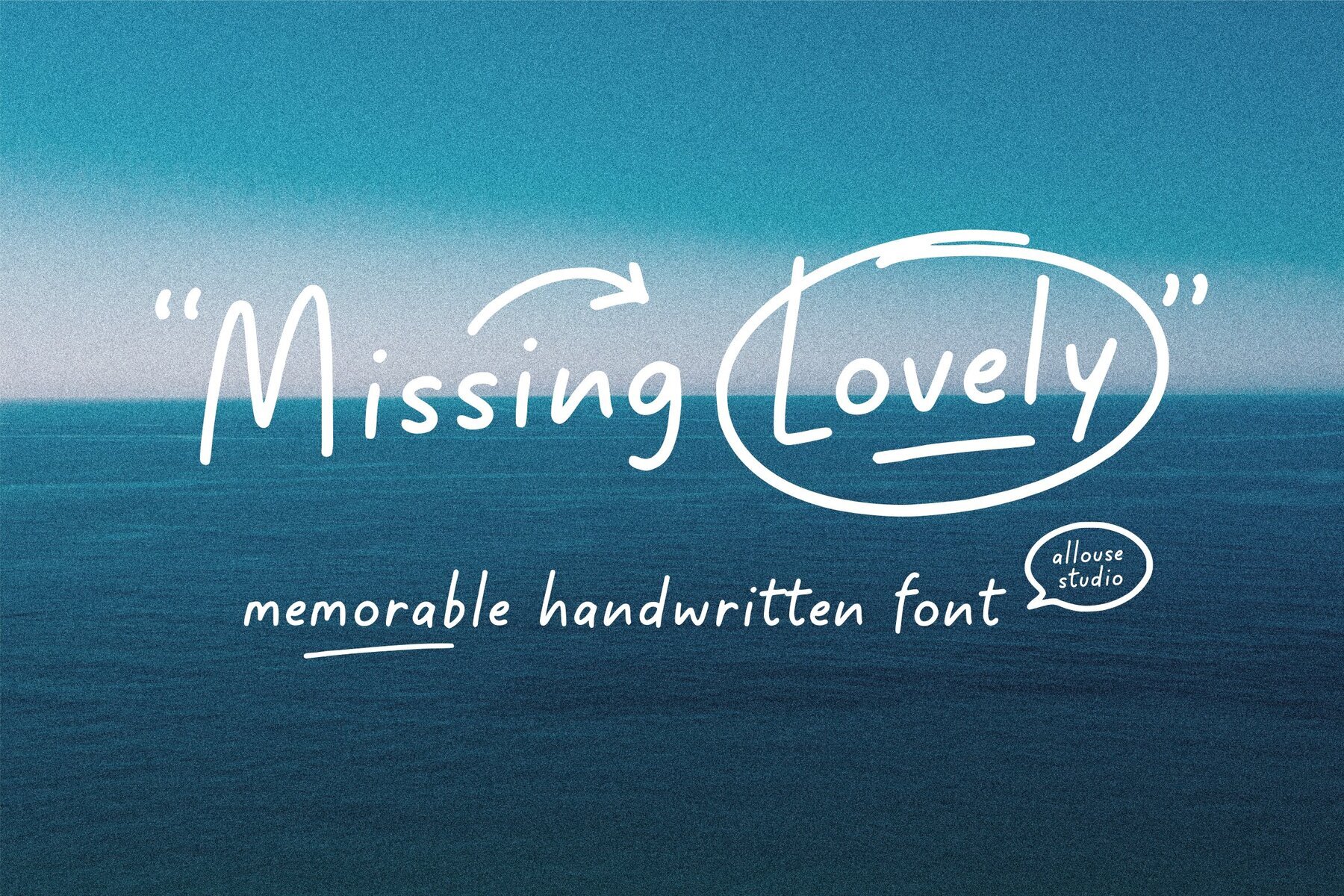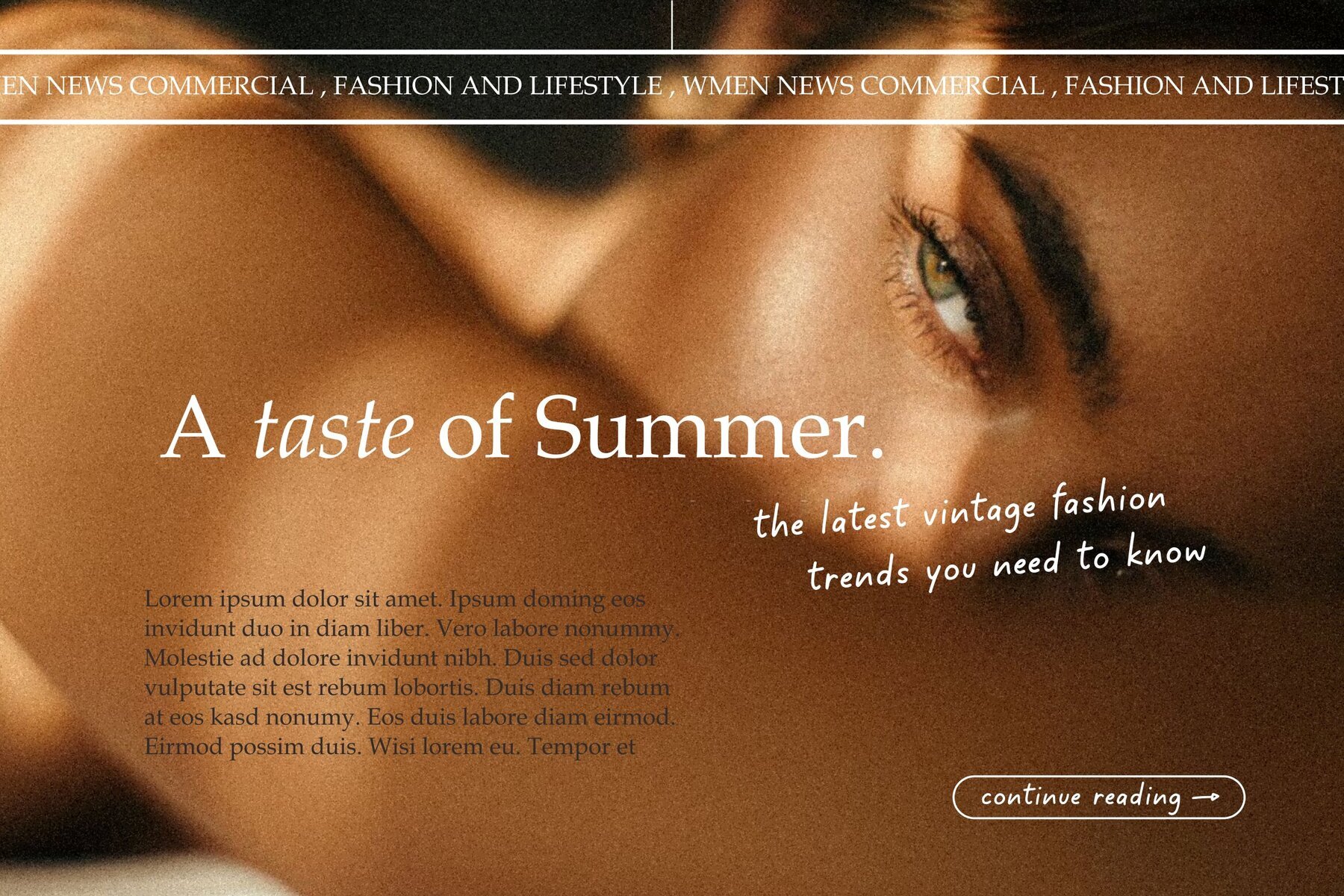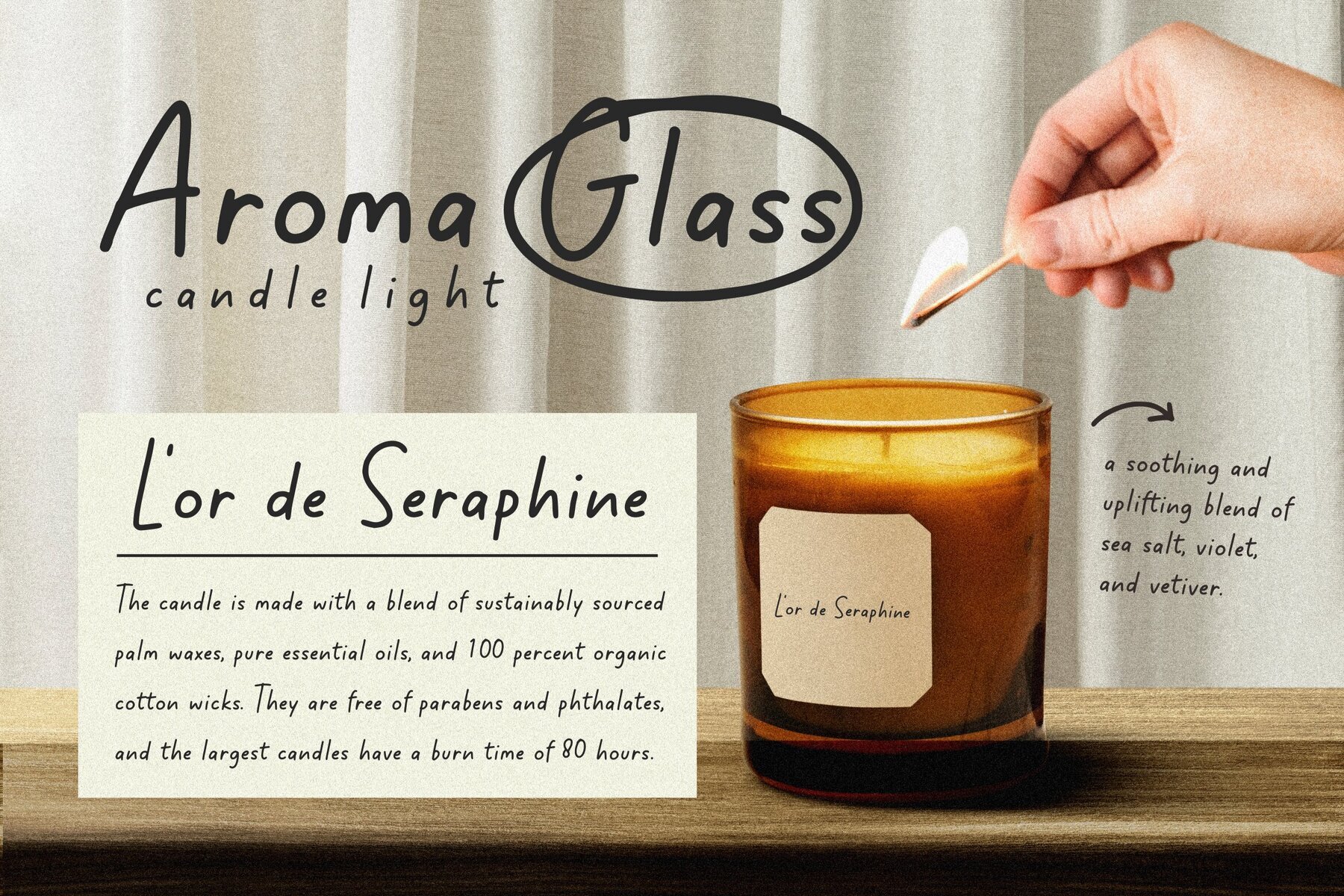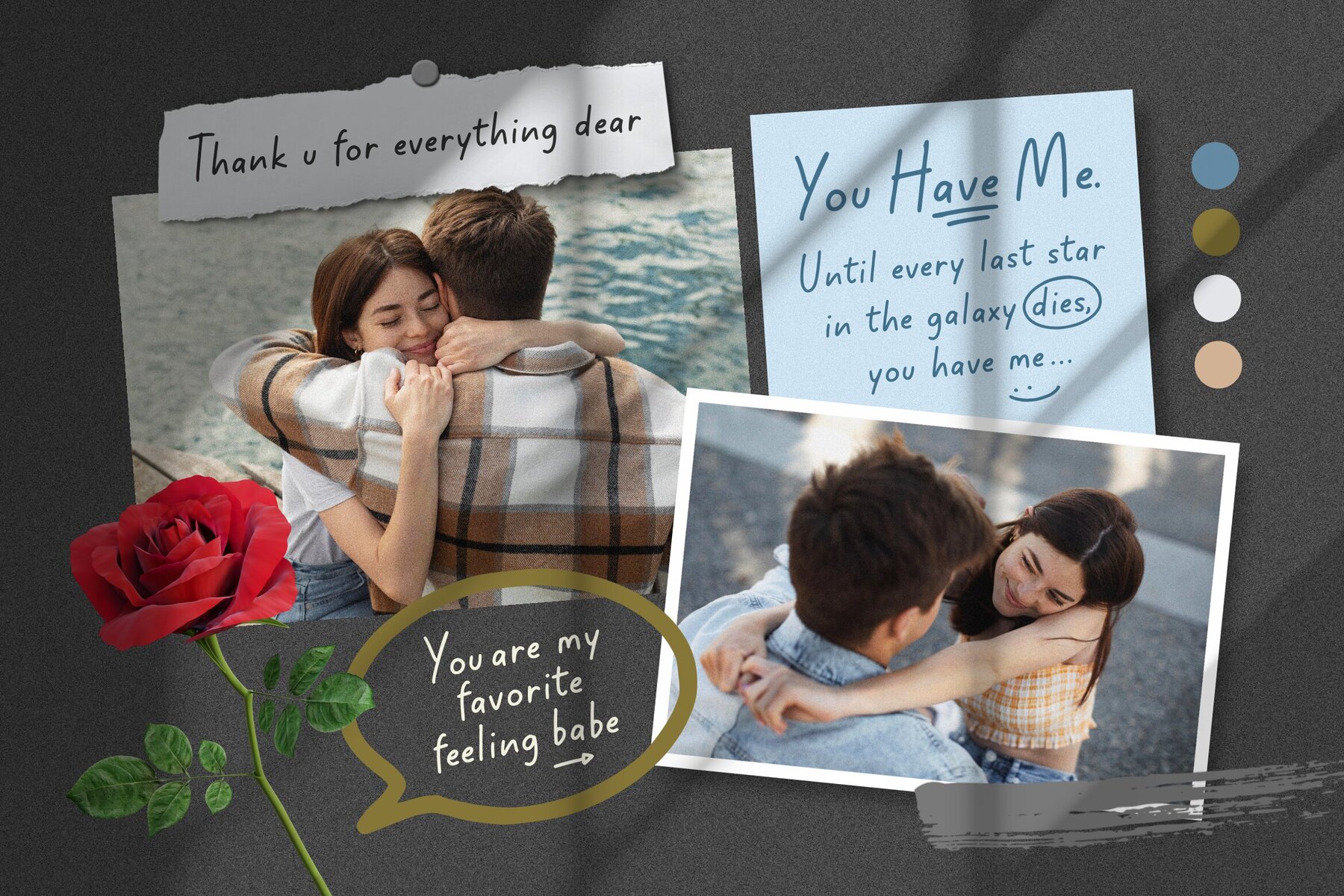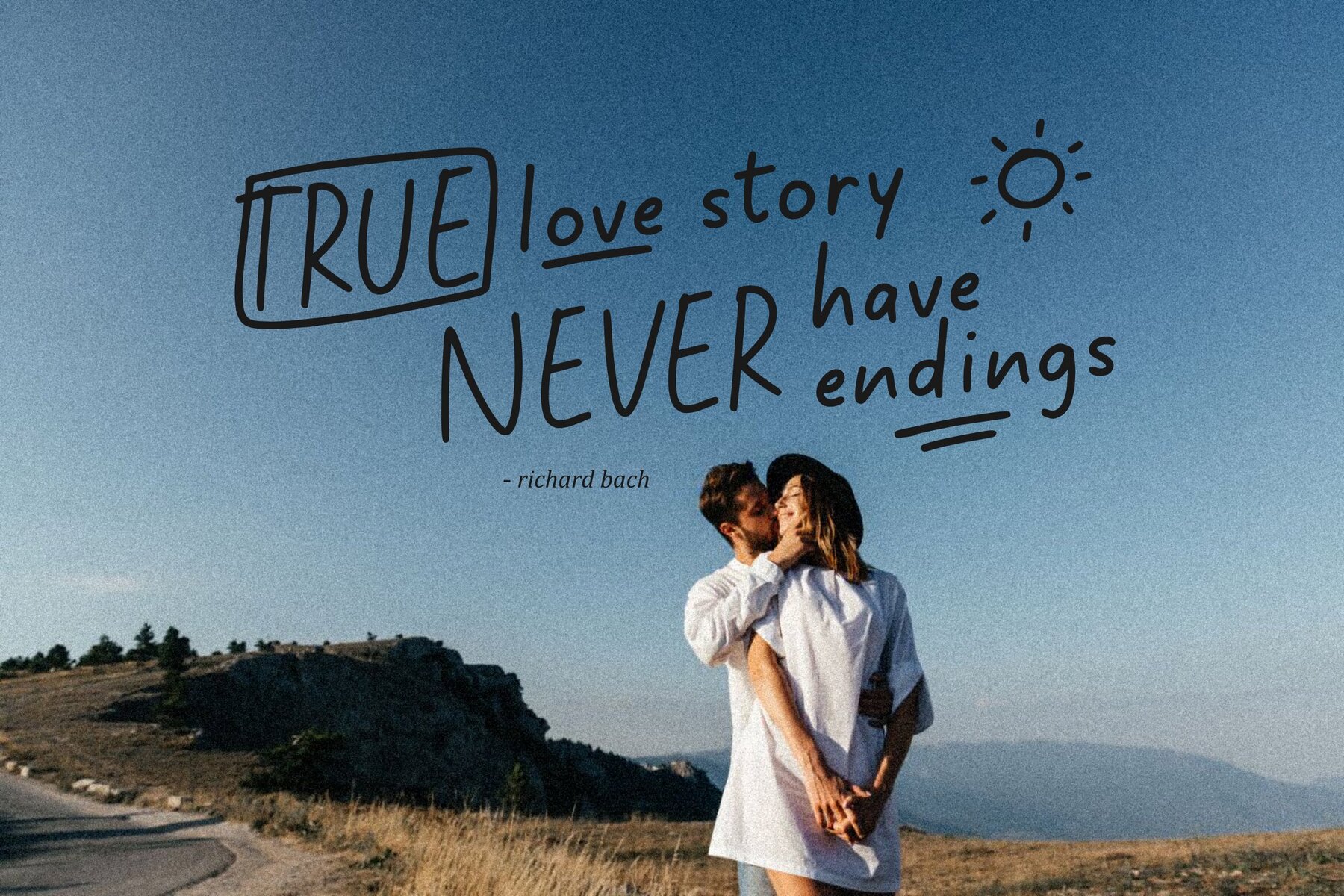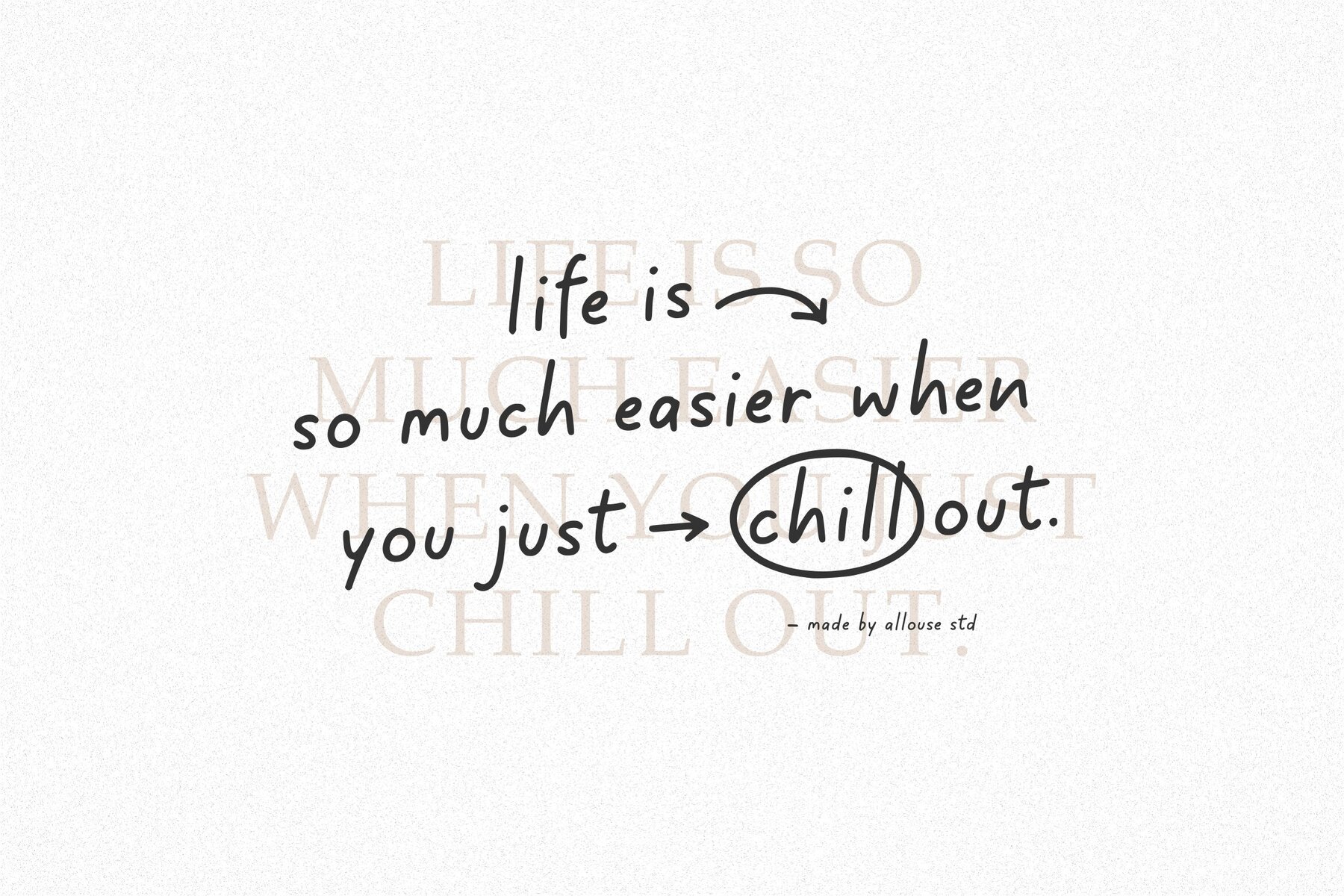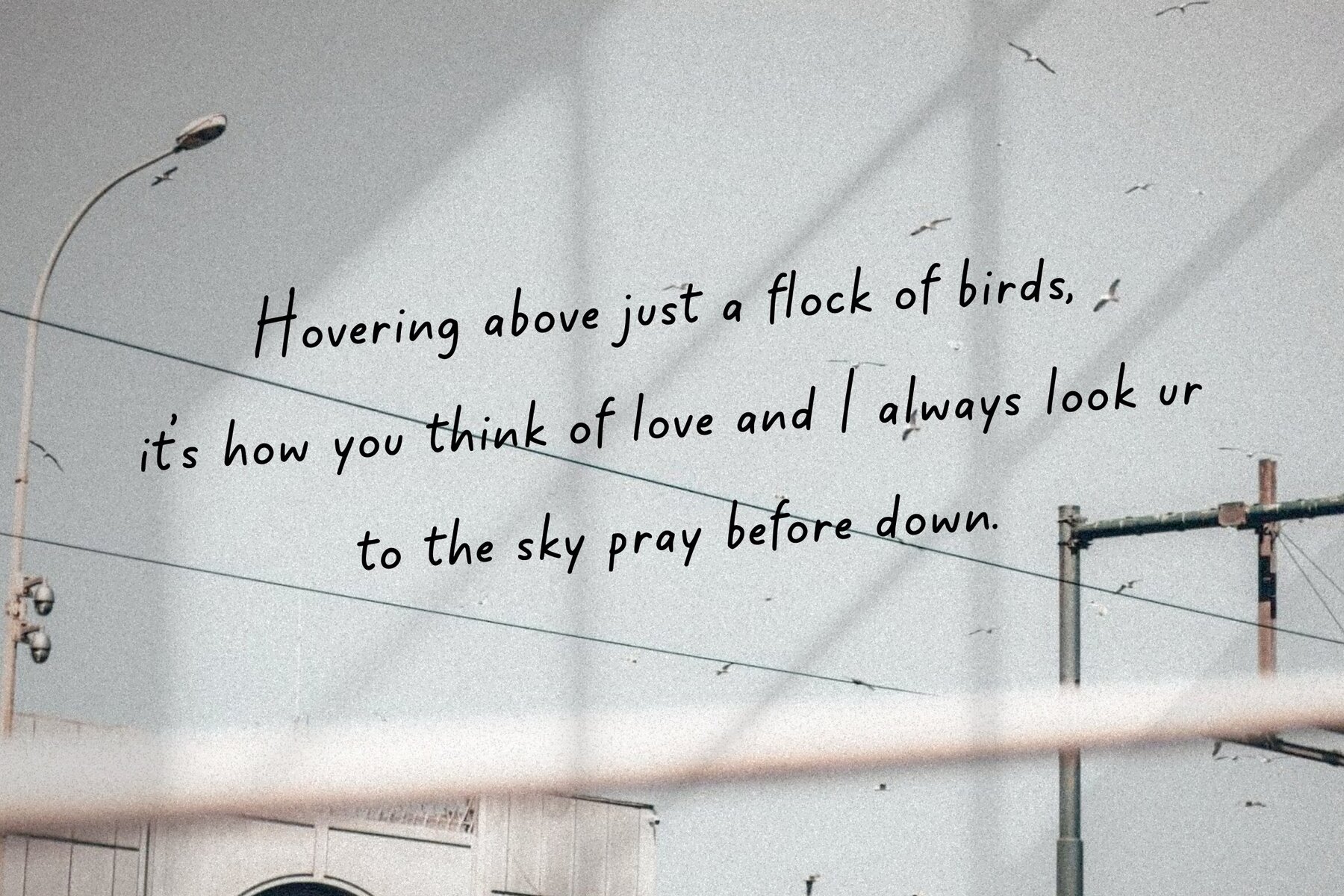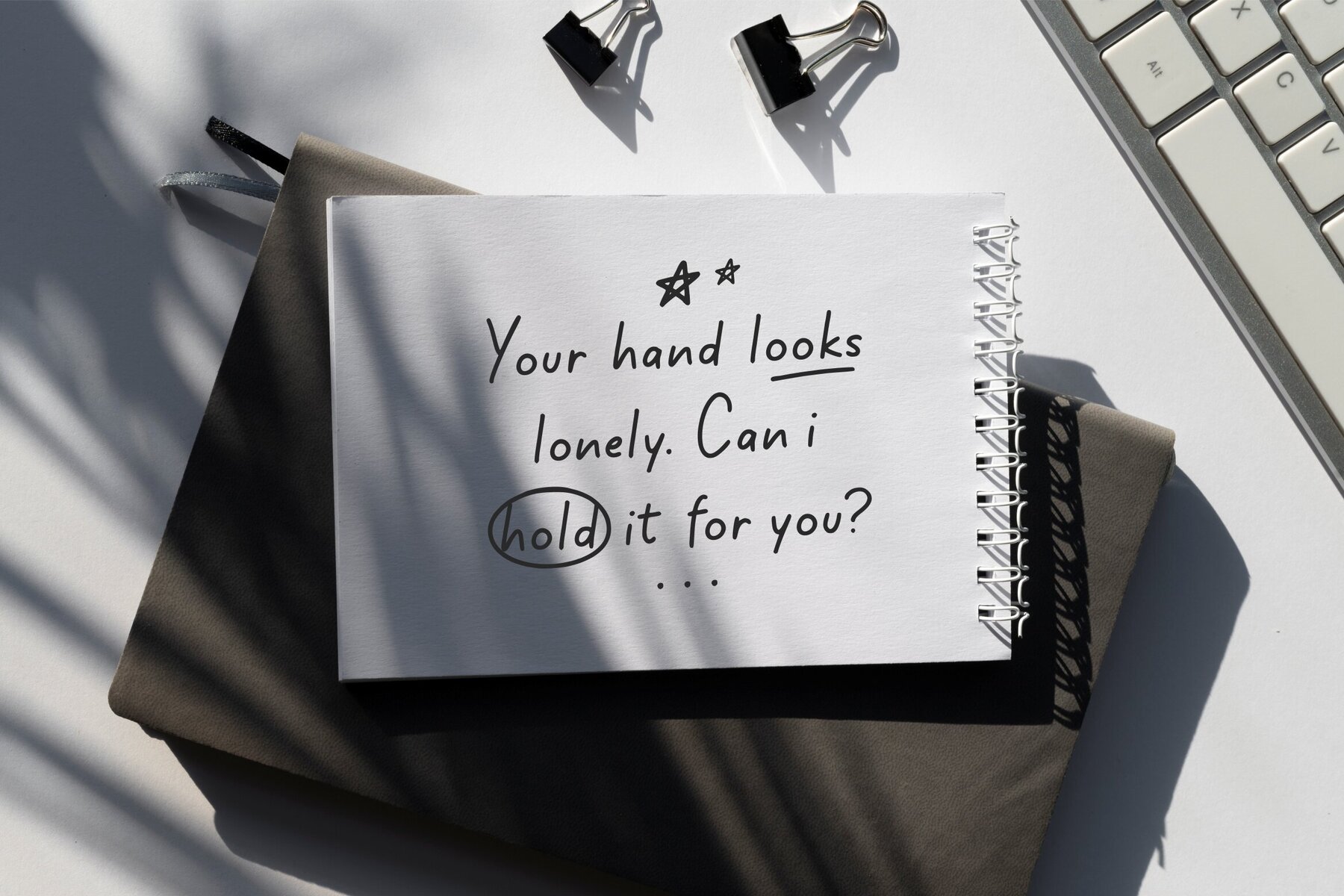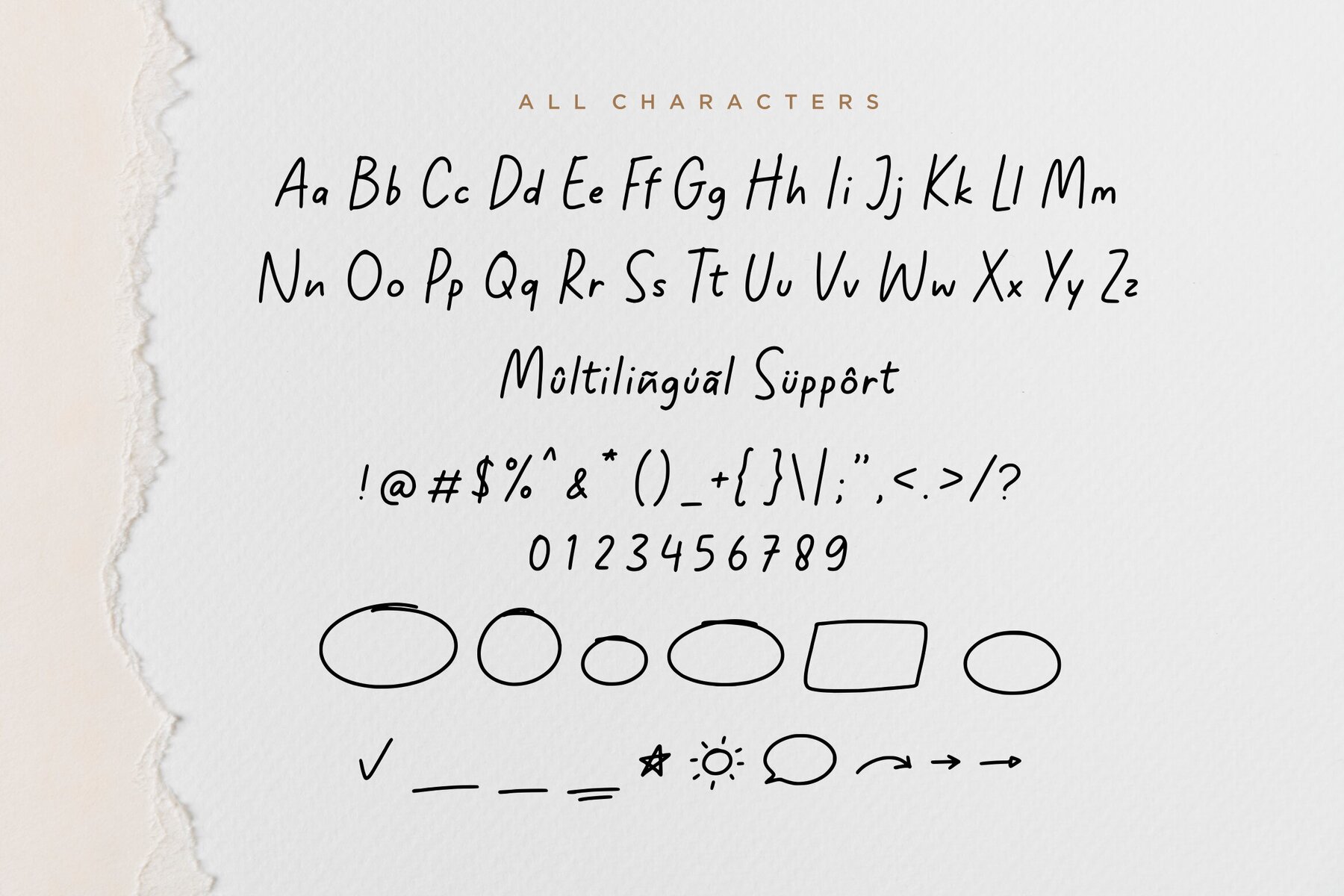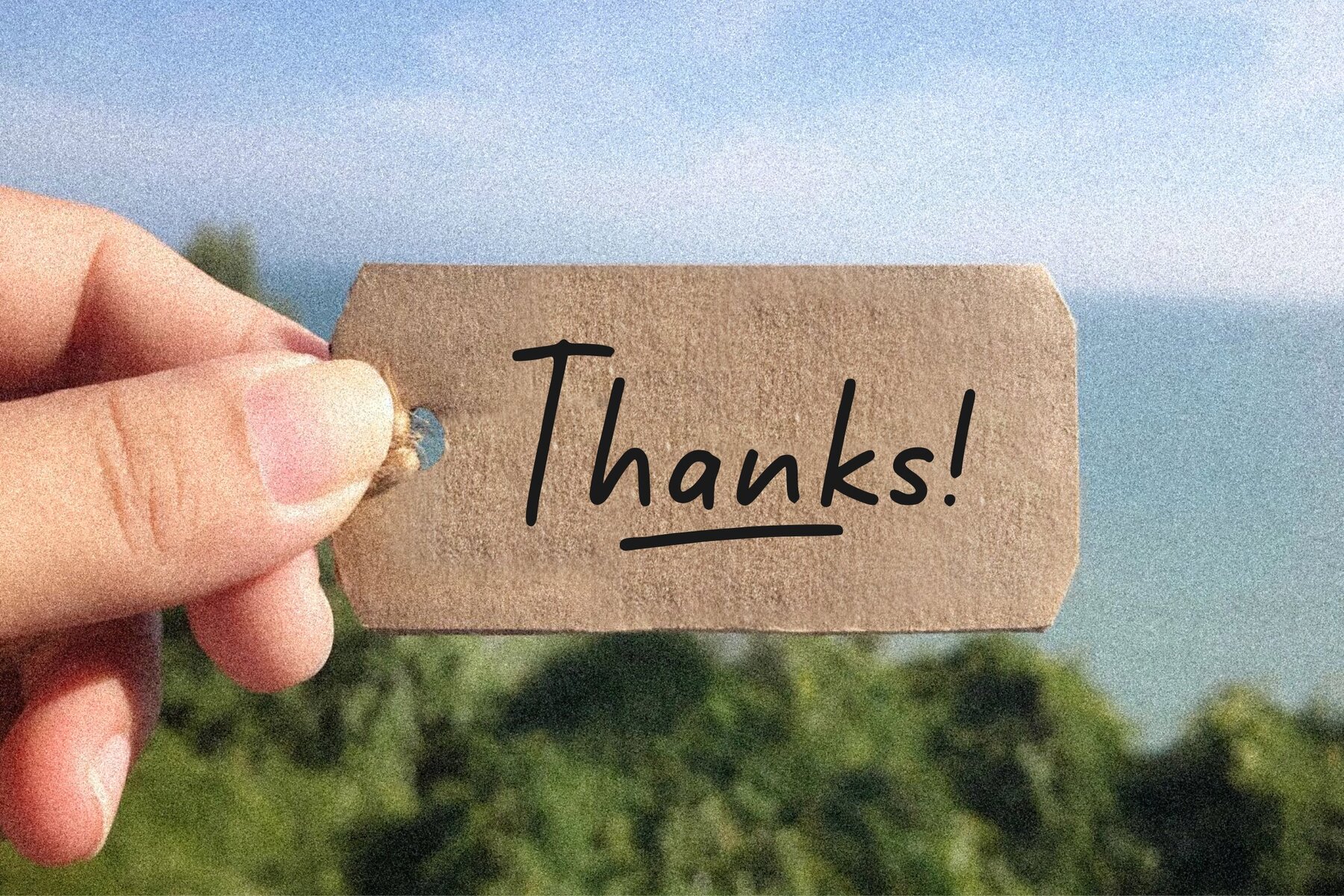
Missing Lovely Font
Missing Lovely Regular
Missing Lovely offers a unique handwriting style that is ideal for a variety of design needs. Its charming and personable strokes make it a versatile choice for captivating audiences across multiple platforms.Missing Lovely: A Memorable Handwritten Font
Perfect for Various Applications